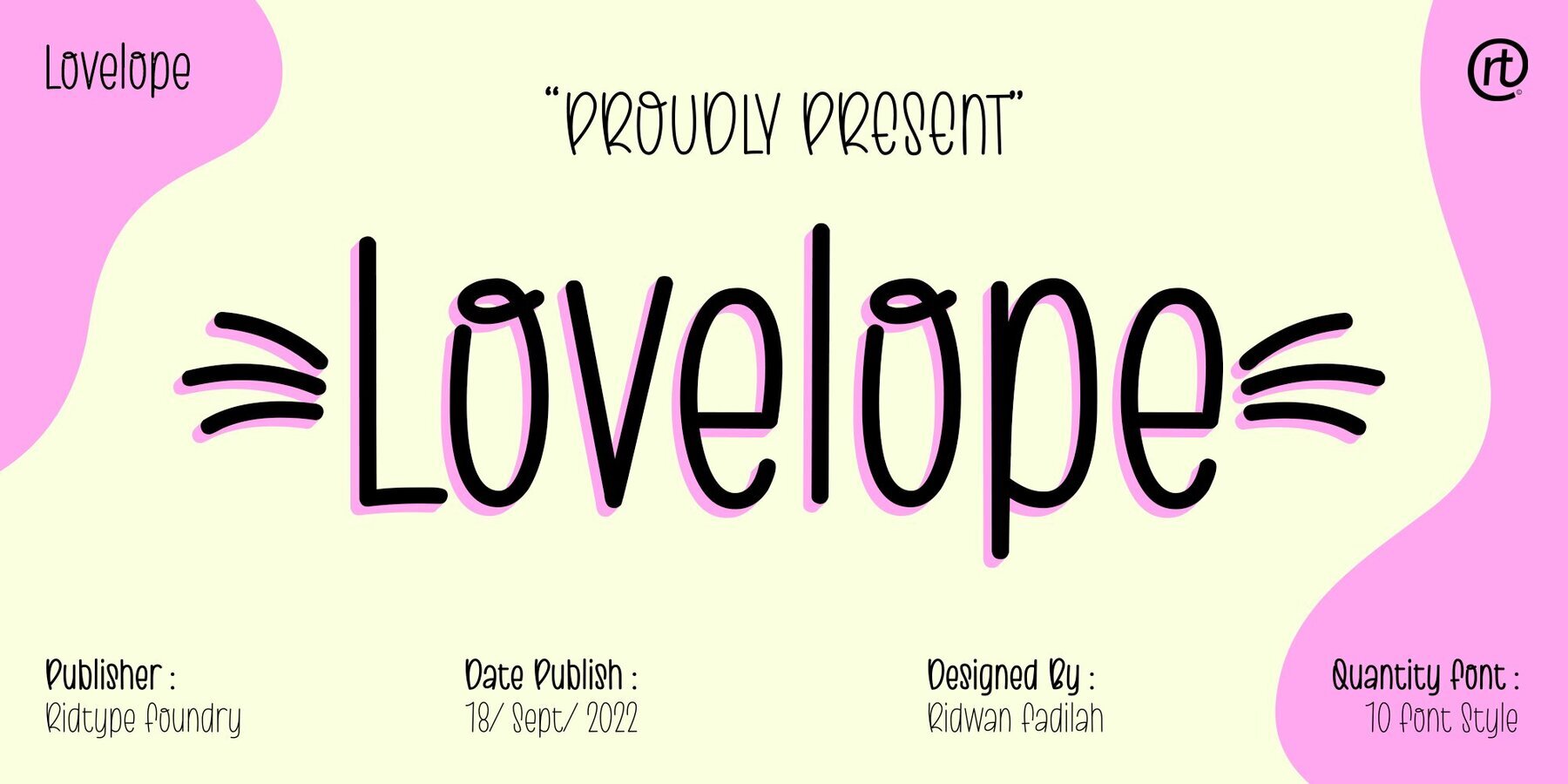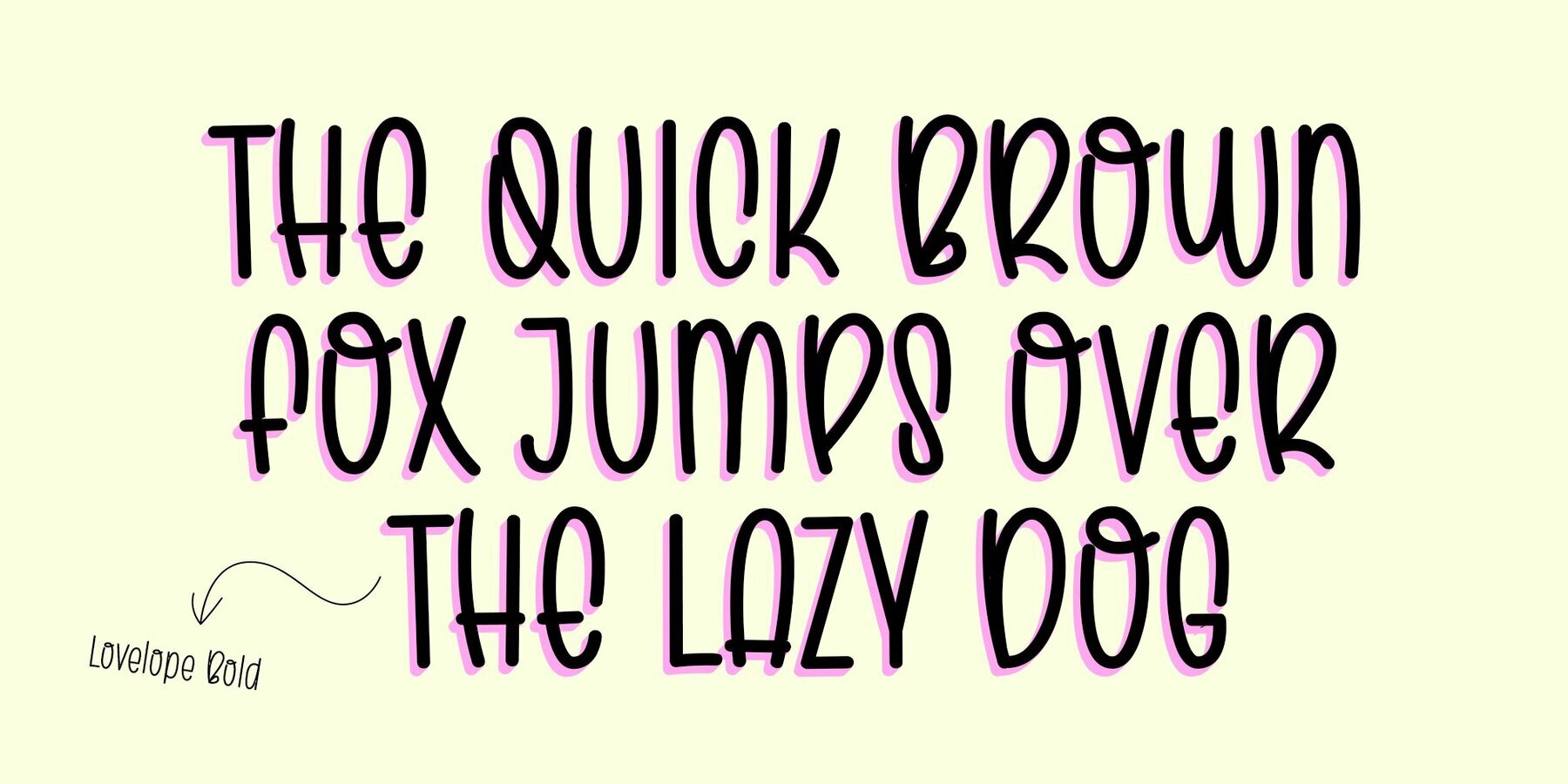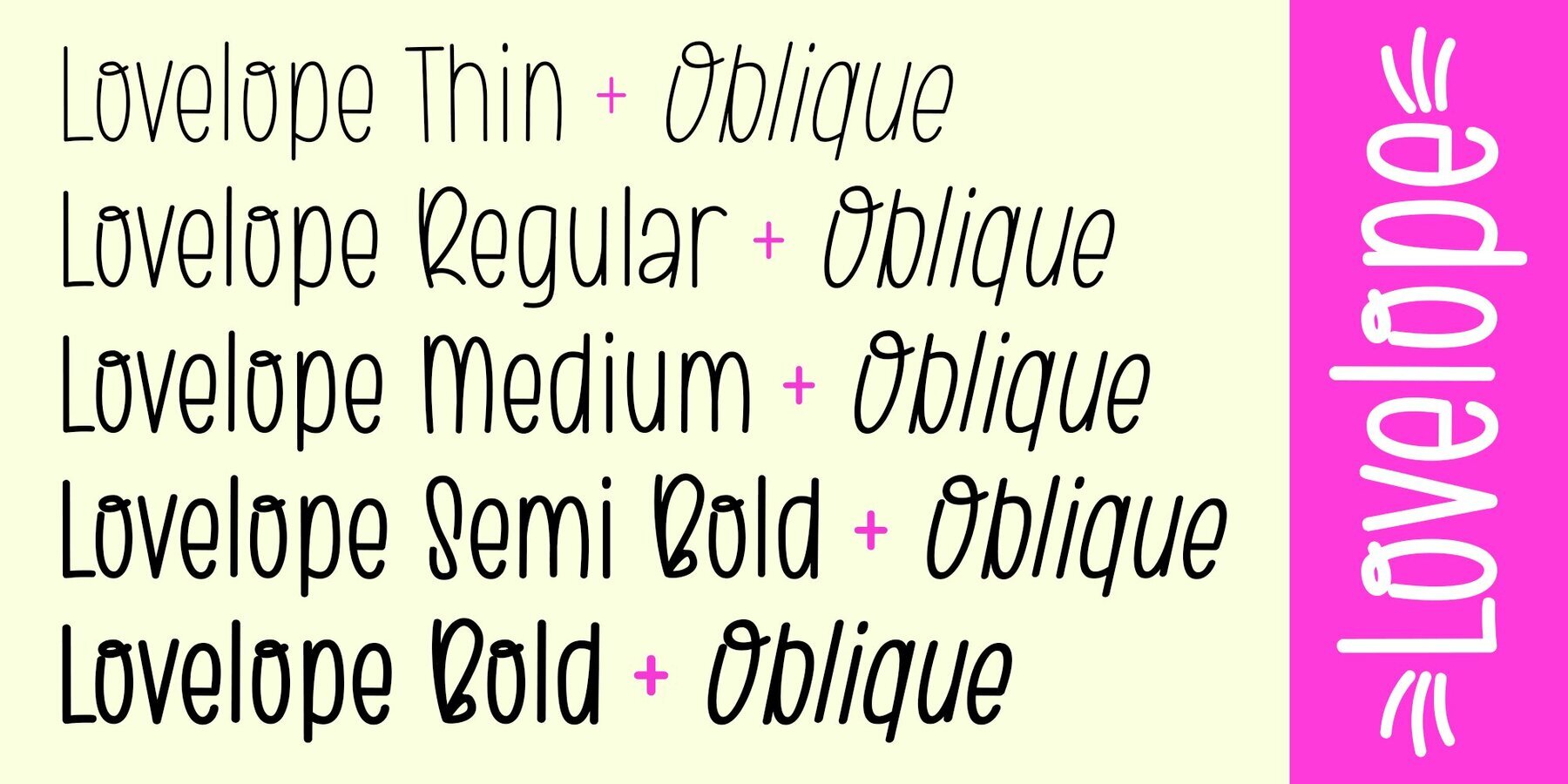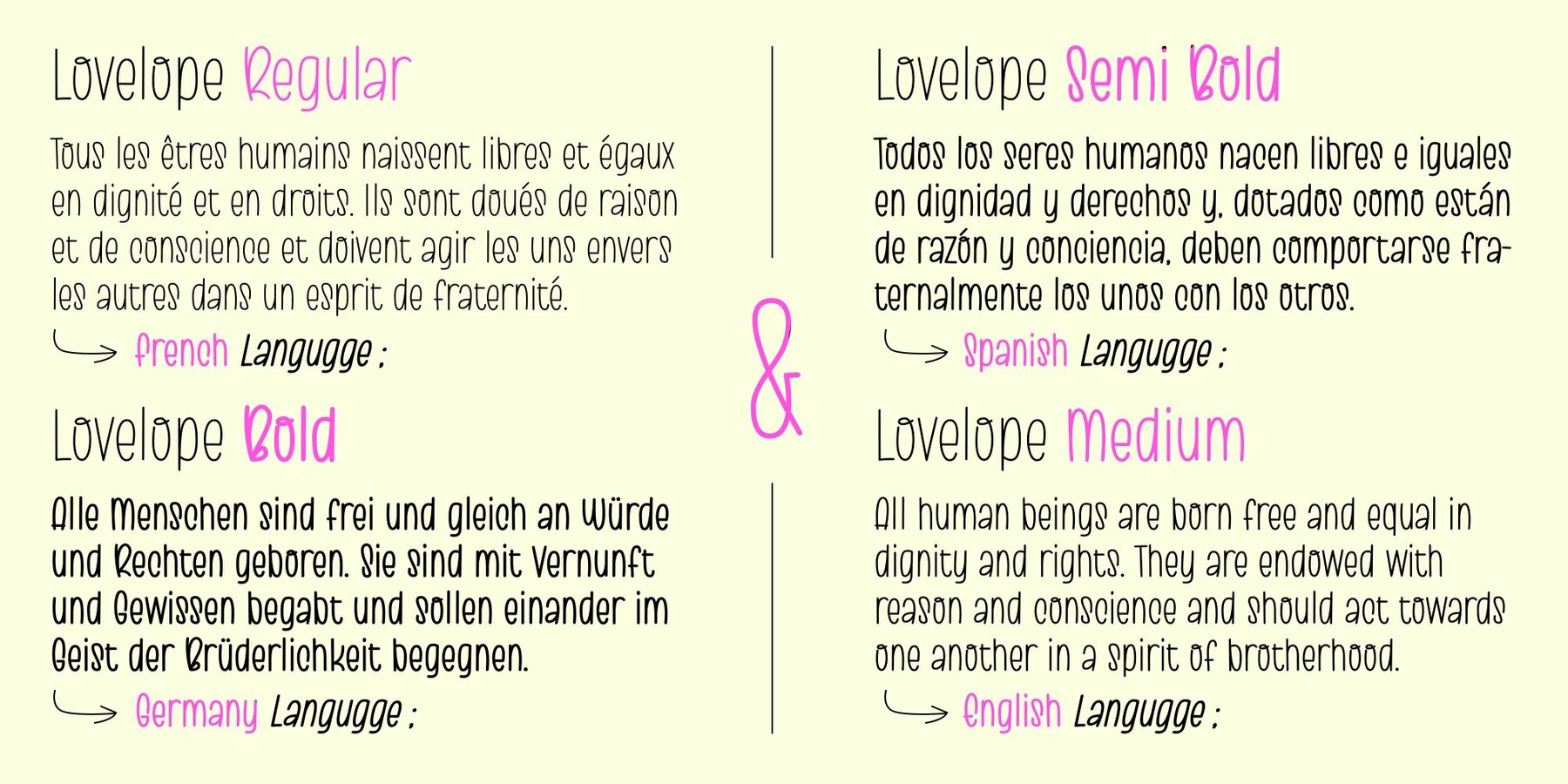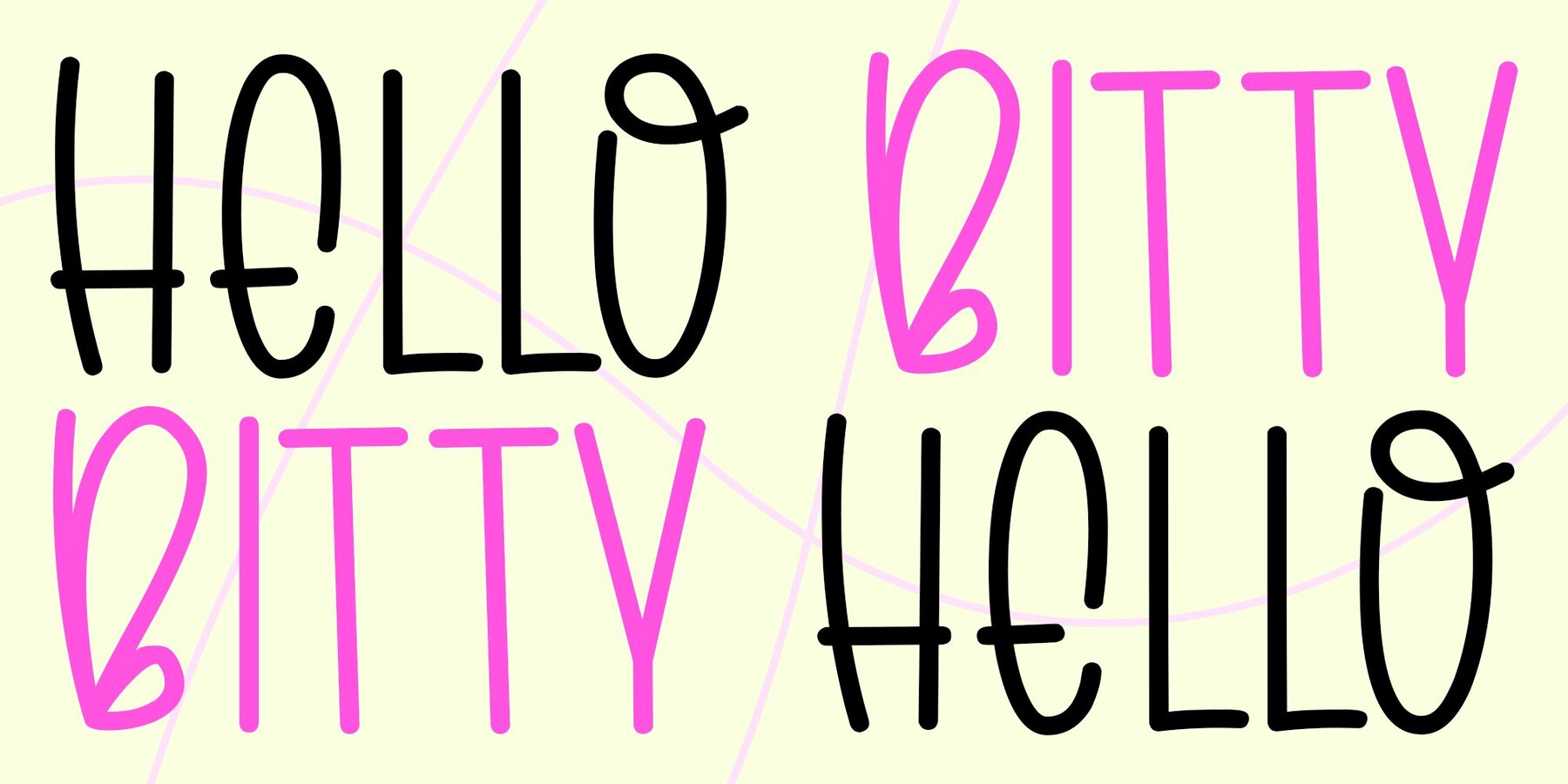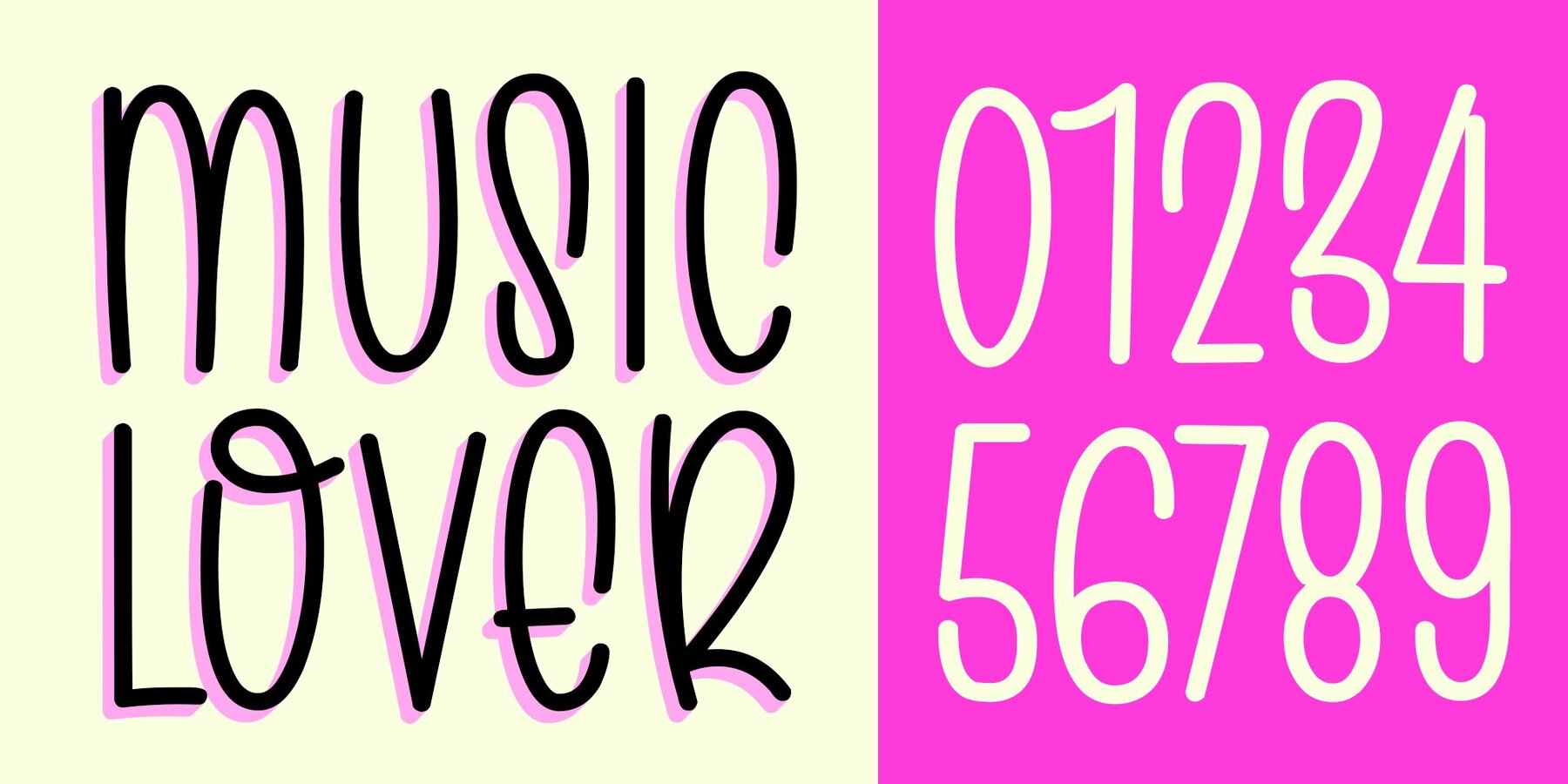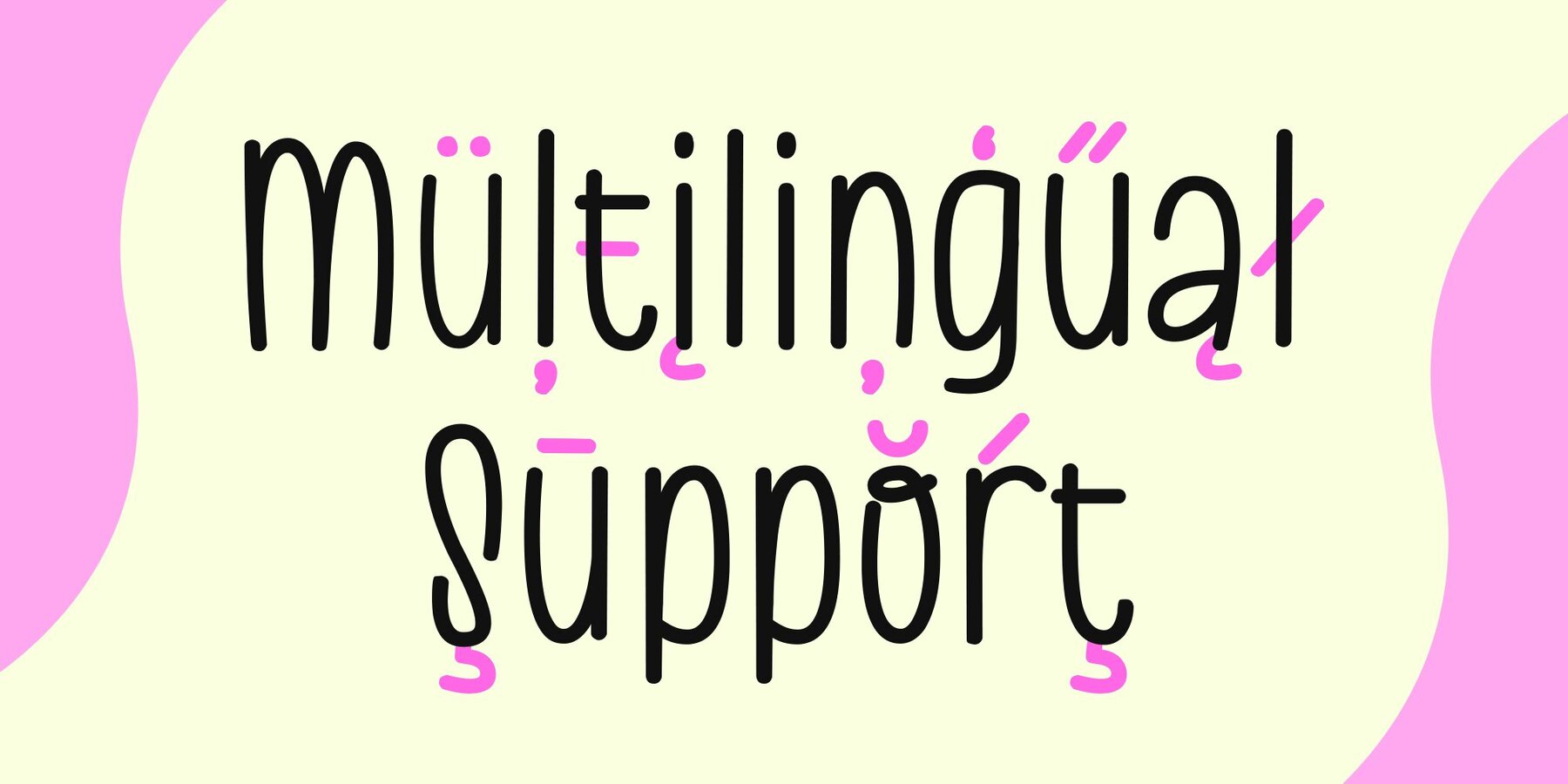
Lovelope Font
Lovelope offers a whimsical approach to typeface design, capturing the essence of childlike wonder and happiness. This handwritten sans serif font embodies the carefree joy reflected in the playful nature of a little girl's world. Its unique style brings a personal and charming touch to your creative projects.Lovelope: Playful Sans Serif Handwritten Font